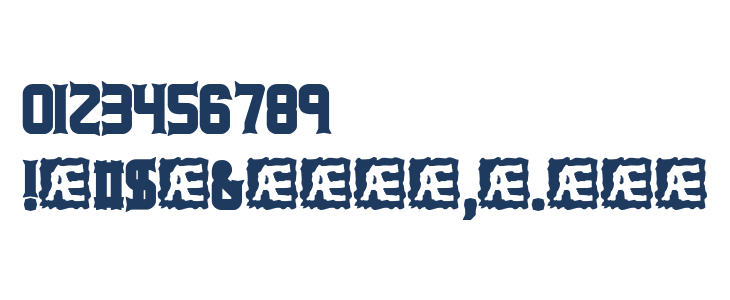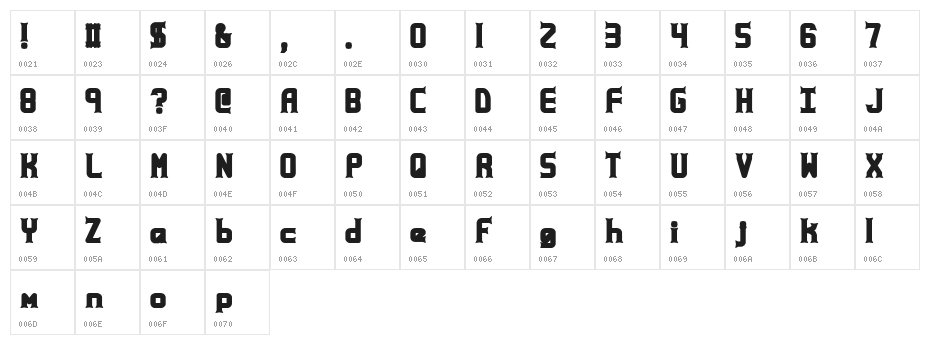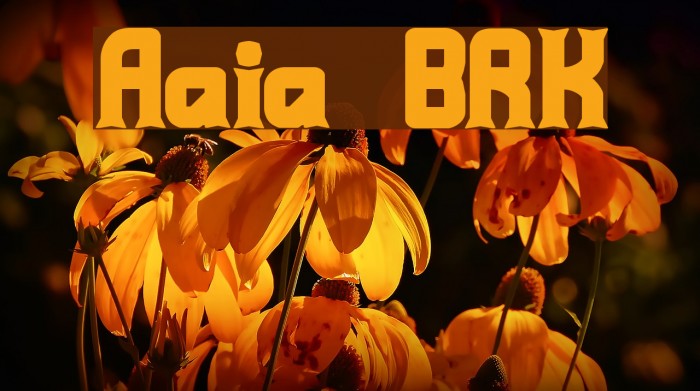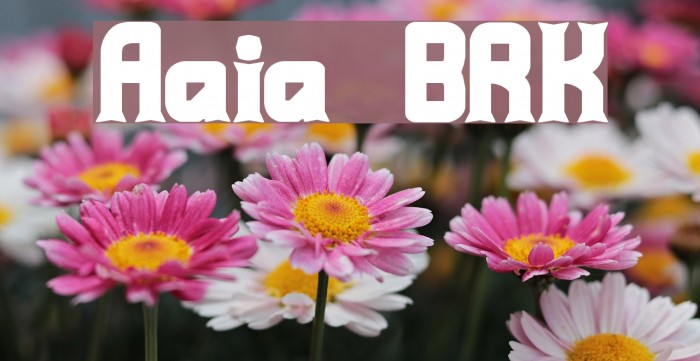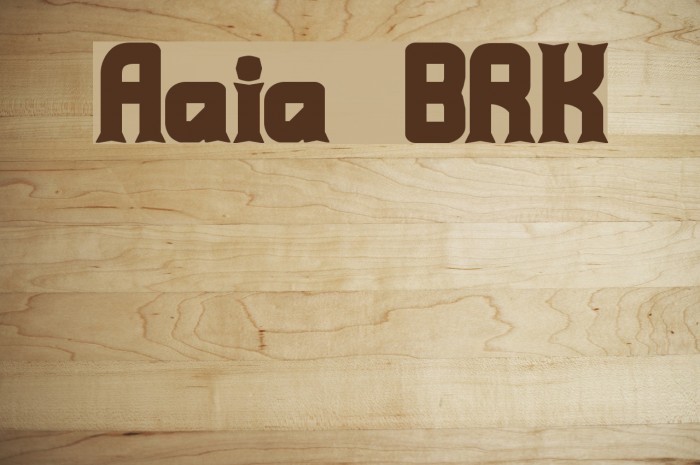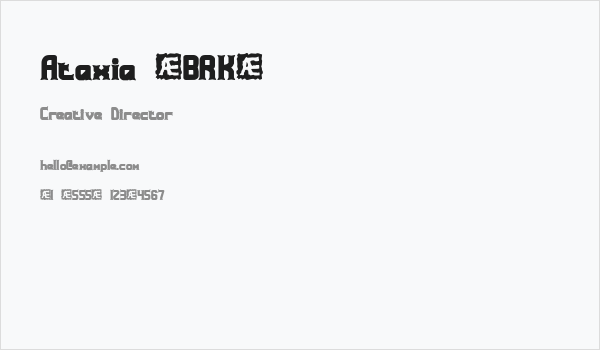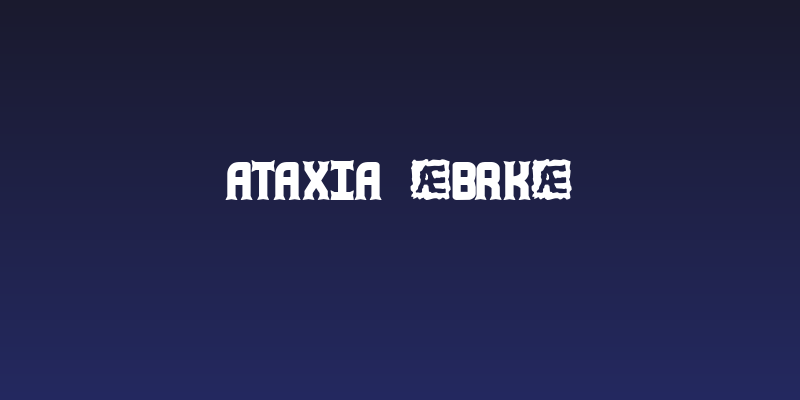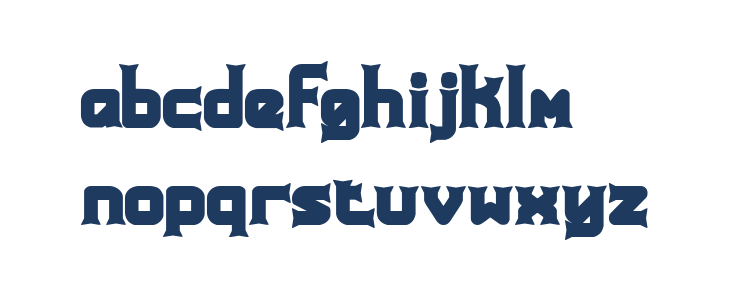
Ataxia [BRK] Font
Ataxia [BRK] Description
This font features a bold and aggressive style with sharp, angular edges and a heavy weight. The characters are designed with a gothic influence, showcasing a unique blend of modern and medieval aesthetics. The uppercase letters are particularly striking, with a strong presence that commands attention. The lowercase letters maintain the same boldness, ensuring consistency throughout the typeface. Numbers and special characters are equally robust, making this font versatile for various design needs. The overall appearance is both dramatic and eye-catching, suitable for projects that require a strong visual impact.
| Overall Style | Modern Gothic |
| Proposed Projects | Ideal for album covers, posters, branding for edgy or alternative products, and any design requiring a strong visual impact. |